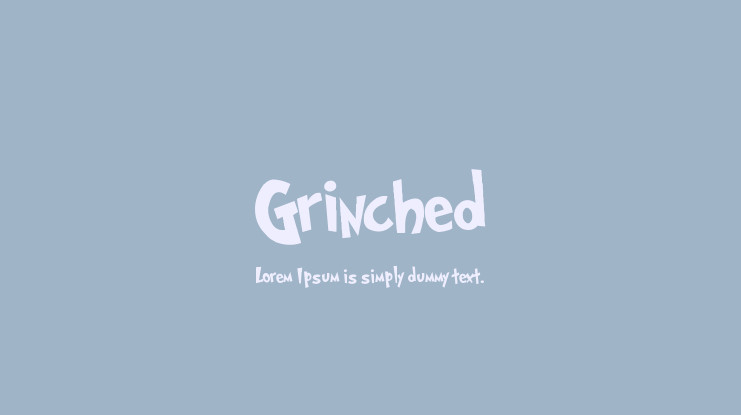
Grinched Font
Grinched Font is commonly used in designs, including commercial projects, for its text-generating capabilities. This font adds a touch of elegance to the content.
Style Of Grinched Font Free